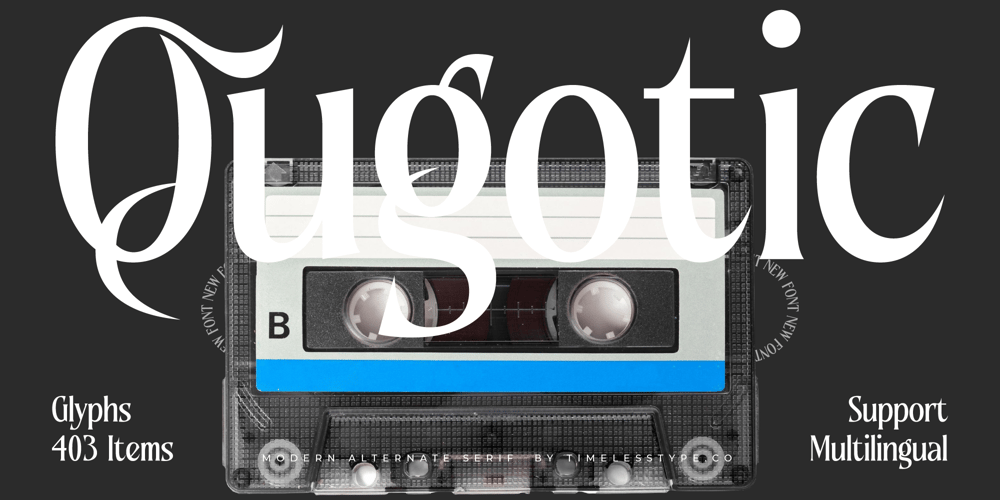
Qugotic
Qugotic font
Qugotic Font Family was designed by Heru Utama Putra and published by Timelesstype Studio. Qugotic contains 2 styles and family package options. Qugotic – Modern Alternate Serif , from Timelesstype, Suitable for any projects such as: logos, branding projects, homeware designs, product packaging, mugs, quotes, posters, shopping bags, t-shirts, book covers, name card, invitation cards, greeting cards, label, photography, watermark, special events, and all your other luxury and beautiful projects that need a Luxury Serif taste.